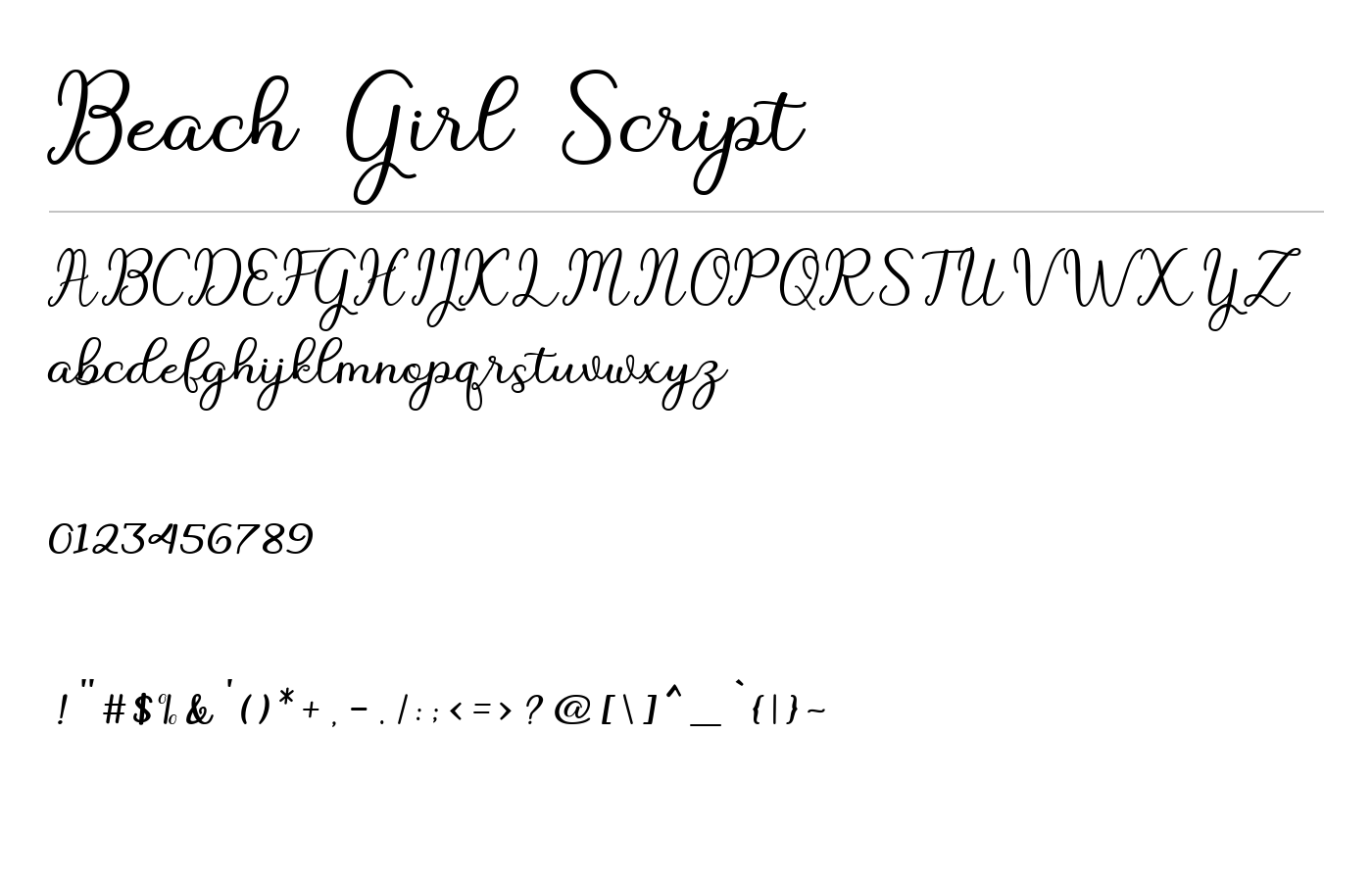
Beach Girl Script is a delicate and elegant handwritten script font featuring graceful, flowing letterforms with a lightly calligraphic touch. Its thin strokes and smooth curves create a charming, feminine appeal ideal for branding, invitations, and packaging where a soft, romantic feel is desired. This font works beautifully for projects that require a refined yet playful personality, adding a personal and stylish touch to headlines and decorative text.
Beach Girl Script Font
About Beach Girl Script Font